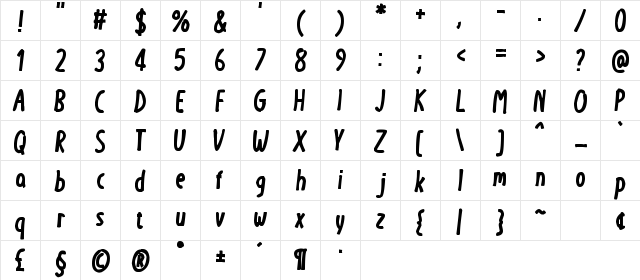
Complete Valentine Monster Regular glyph index. Displaying only characters natively supported by Valentine Monster Regular font.
Valentine Monster is a composed and adaptable typeface that performs quietly and consistently across a wide range of design contexts.